11 Modern Logo Fonts to Build Brand Recognition in 2026
As a designer, I know that the right logo font can instantly shape how a brand is remembered. In this collection, I selected 12 bold modern logo fonts that I personally use to create strong, recognizable, and timeless brand identities in 2026.
These typefaces are perfect for logos, fashion branding, packaging, creative studios, and modern business visuals. I focused on fonts with clean structure, confident character, and contemporary aesthetics that help brands stand out while maintaining a premium and professional look.
Typography is more than just style — it creates recognition, emotion, and identity. That’s why I carefully choose fonts that bring clarity, personality, and impact to every project I design.
Mango Dream Logo Font
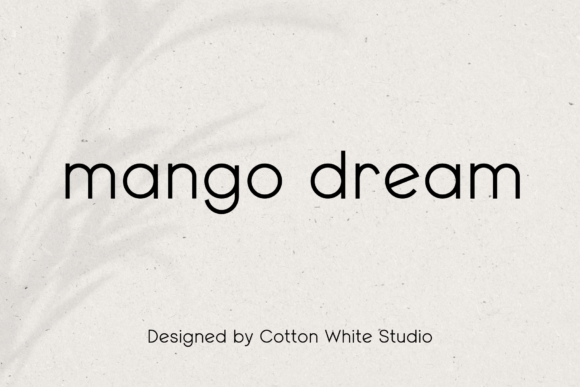
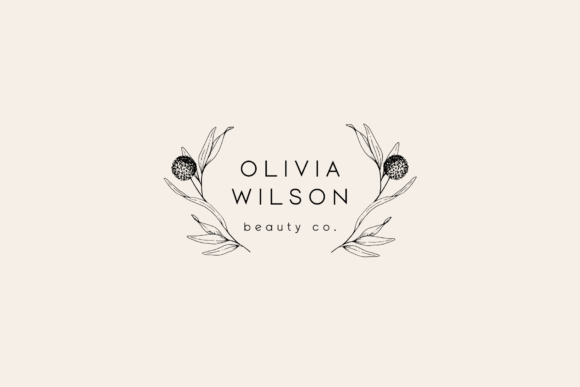
I use Mango Dream in my design projects when I want a clean, modern sans-serif font with a minimal and professional feel. Its rounded shapes give my layouts a friendly yet polished look, making it ideal for branding, websites, and marketing materials. I also value its multilingual support, which helps me create designs that work seamlessly for a global audience.
Little Love Logo Font
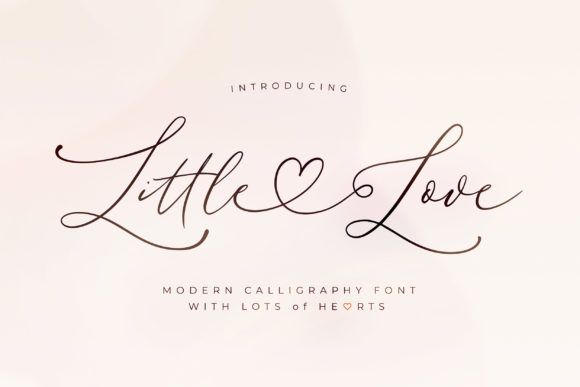
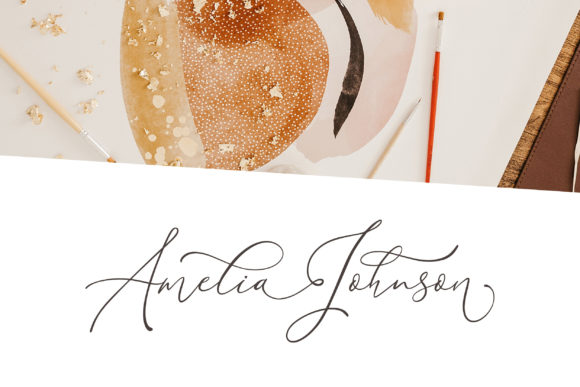
I use Little Love in my design projects when I want a refined and graceful script font with a clean, thin, and smooth feel. Its elegant style works beautifully for branding, invitations, social media visuals, and delicate editorial layouts. I also appreciate its PUA encoding, which gives me easy access to all glyphs and swashes for more expressive and customized typography.
Chopard Logo Font
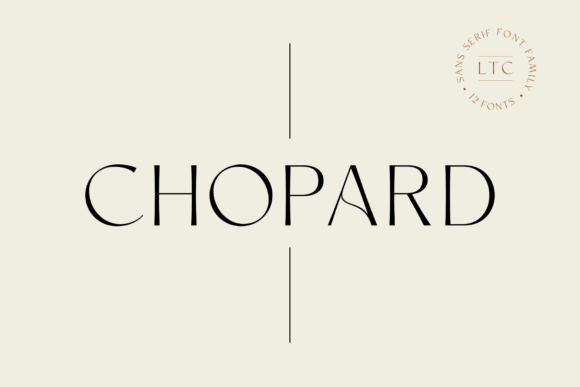
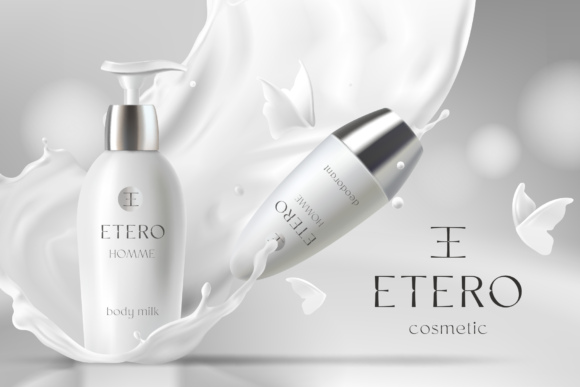
I use Chopard in my design projects when I want an elegant and modern sans serif font with a clean, refined look. Its simple yet stylish letterforms help me create standout branding, editorial layouts, logos, and digital content. I love how it brings a polished and contemporary feel that enhances the overall clarity and sophistication of my designs.
Miamo Logo Font
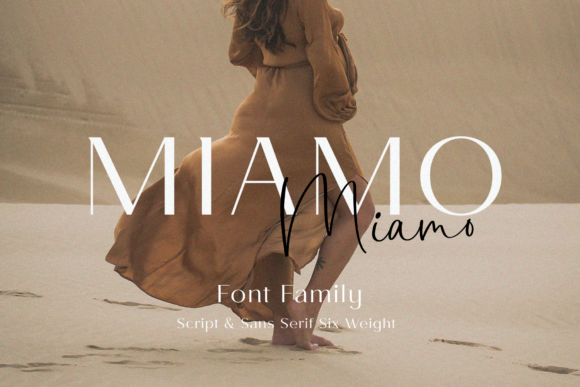
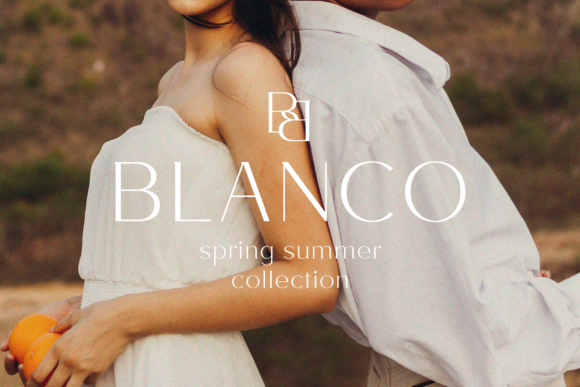
I use Miamo in my design projects when I want a paired font system that feels chic and cheerful. The two fonts work beautifully together or separately, giving me flexibility across branding, invitations, packaging, and social media designs. I also appreciate its PUA encoding, which lets me easily access all glyphs and swashes for more playful and customized typography.
Bride Logo Font
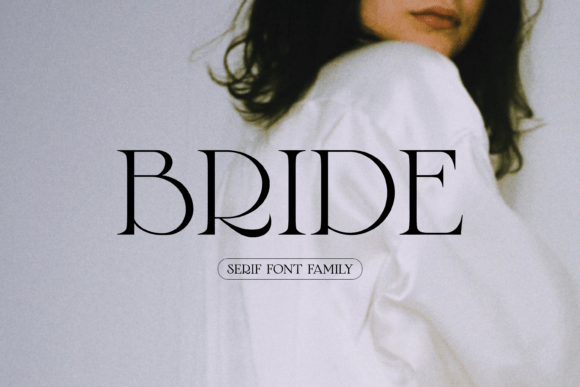
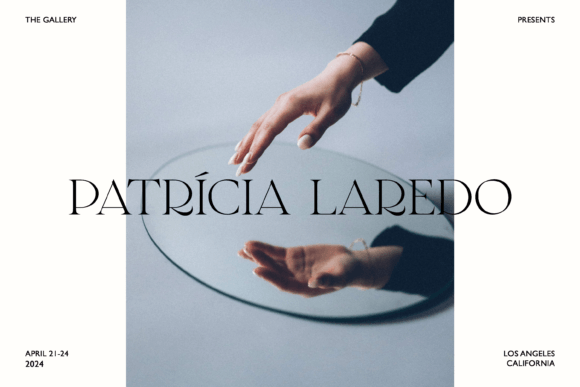
I use Bride in my design projects when I want a stylish and poetic serif font with timeless elegance. Its delicate serifs and graceful curves help me create refined branding, wedding invitations, editorial layouts, and luxury-inspired visuals. I love how each letter feels expressive and balanced, turning simple text into something visually graceful and sophisticated.
Blistao Logo Font
I use Blistao Tattoo Vintage Retro Serif in my design projects when I want a bold serif font with a strong vintage tattoo-inspired character. Its decorative letterforms and old-school style help me create striking logos, posters, and branding with a timeless, artistic feel. I love how it adds personality and retro energy while still keeping a polished and intentional design aesthetic.
Intenso Logo Font
I use Intenso in my design projects when I want a versatile and elegant font family that combines script, serif, and italic styles. The script brings a classic and refined calligraphic feel, perfect for adding grace and sophistication to invitations, branding, and decorative layouts. The serif styles, with their high contrast and sharp details, work beautifully for headlines and structured typography, especially in luxury or editorial designs. I love how the full family works together seamlessly, giving me flexibility while maintaining a cohesive and polished aesthetic across every project.
Solen Logo Font
I use Solen in my design projects when I want a bold sans-serif font with a clean, modern presence. Its sharp lines and contemporary style help me create strong headlines, impactful logos, and attention-grabbing layouts. I love how it balances functionality and style, making it a versatile choice for branding, editorial design, and digital content that needs to leave a lasting impression.
Affection Logo Font
I use Affection in my design projects when I want a charming and stylish calligraphy font with effortless swashes and elegant simplicity. Its relaxed yet captivating letterforms help me create beautiful wedding invitations, branding, greeting cards, and social media visuals. I love how it adds a soft, inviting charm that naturally draws attention while keeping the overall design graceful and balanced.
Tail Logo Font
I use Tail in my design projects when I want a simple yet elegant script calligraphy font with a modern romantic feel. Its signature tail swashes at the beginning and end of letters add extra charm and sophistication, making my designs feel more refined and expressive. I love using it for wedding invitations, branding, greeting cards, apparel, and decorative projects where a touch of beauty and elegance is essential.
Golden Radiant Logo Font
I use Golden Radiant in my design projects when I want a modern serif font with elegant curves and refined alternates. Its stylish letterforms help me create sophisticated branding, logos, magazines, posters, and invitations with a polished and luxurious feel. I also value its PUA encoding, multilingual support, and wide range of alternates, which give me flexibility to craft more expressive and customized typography.